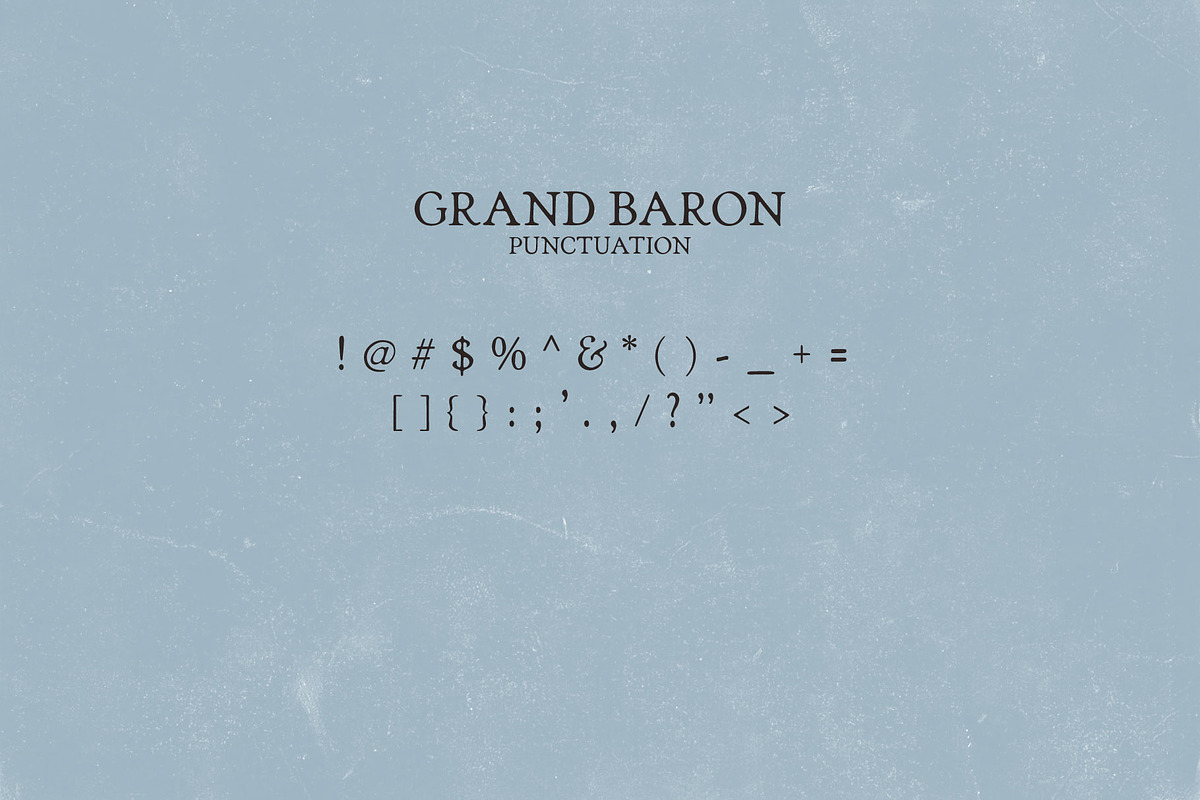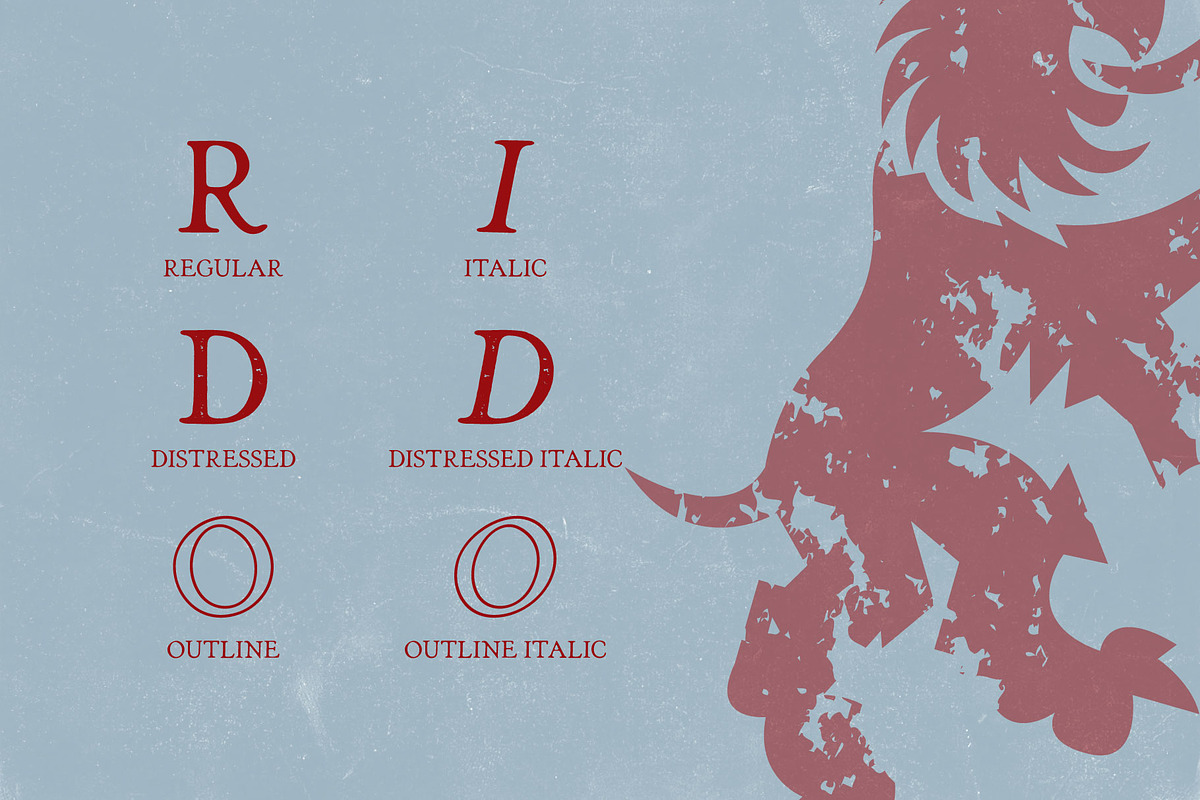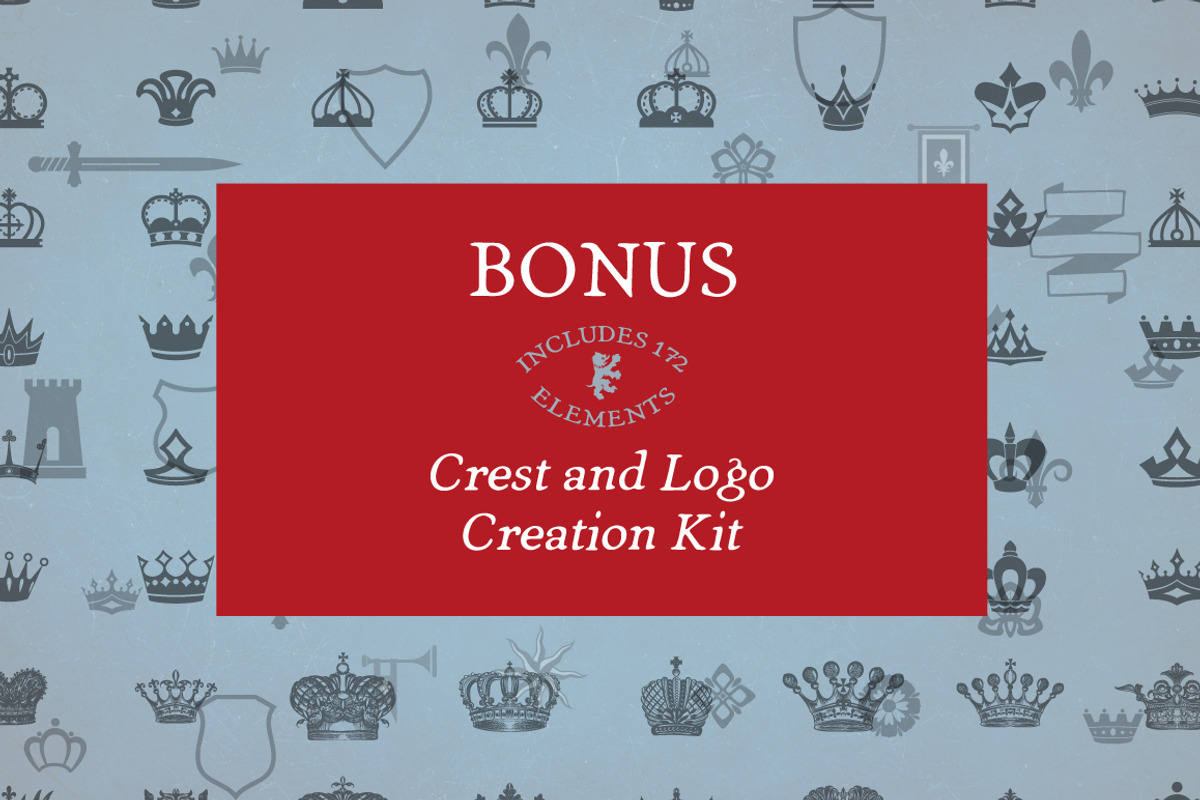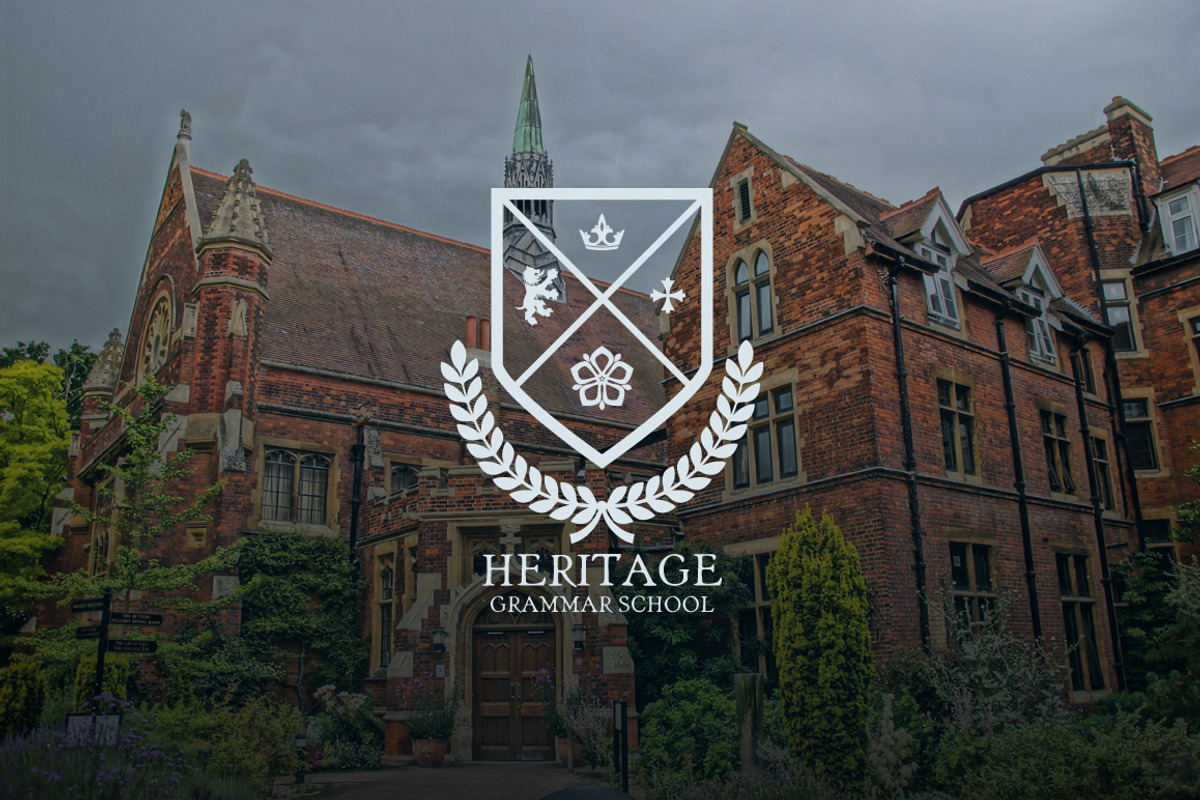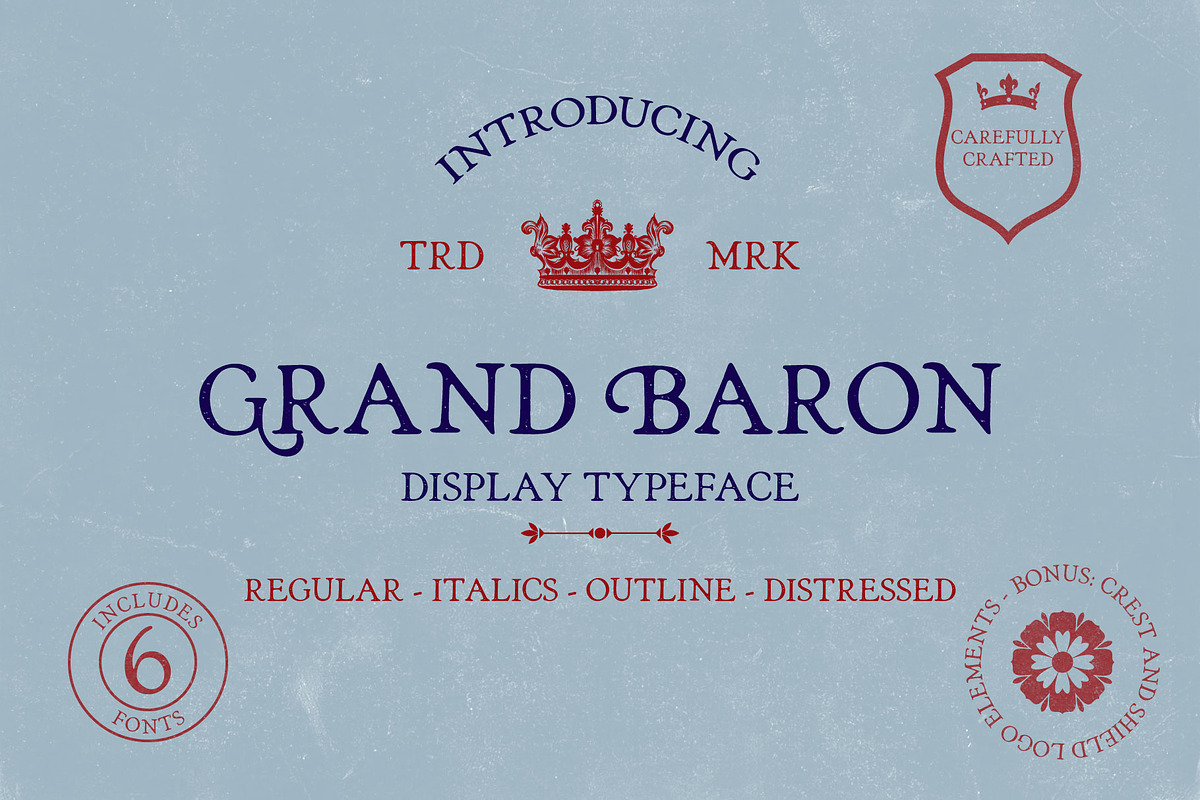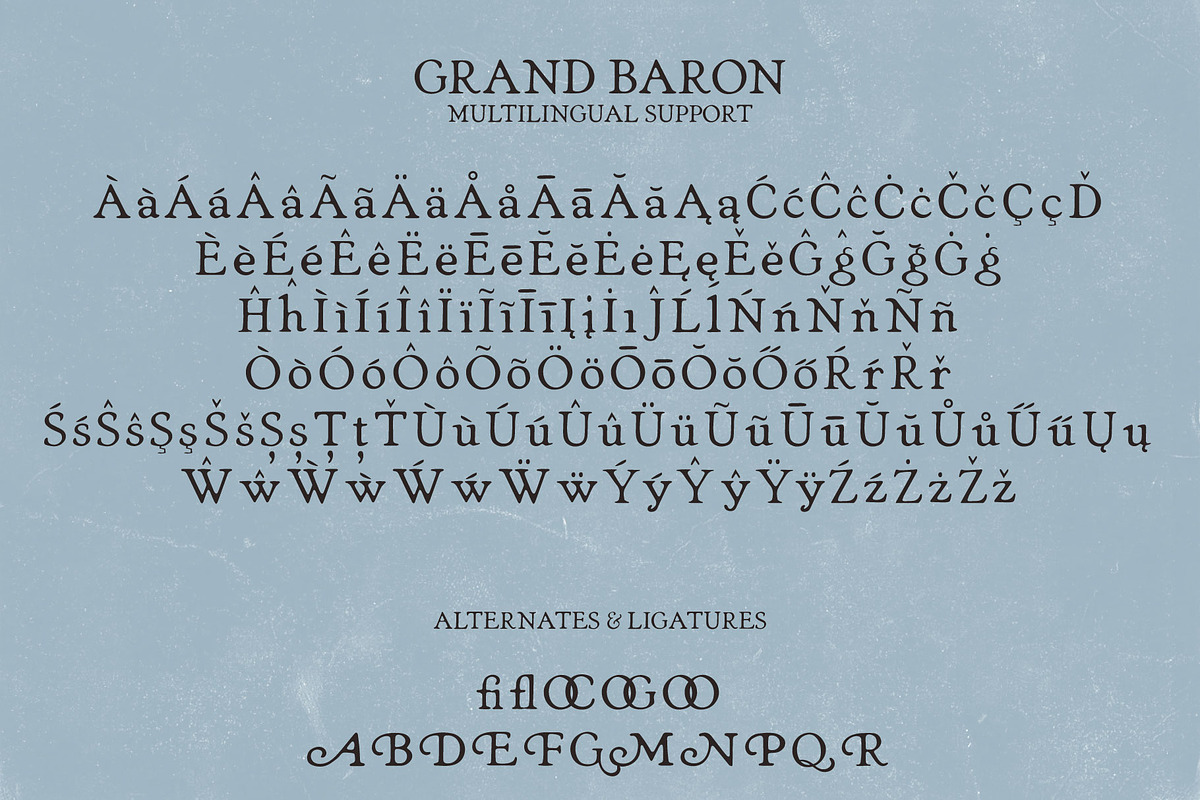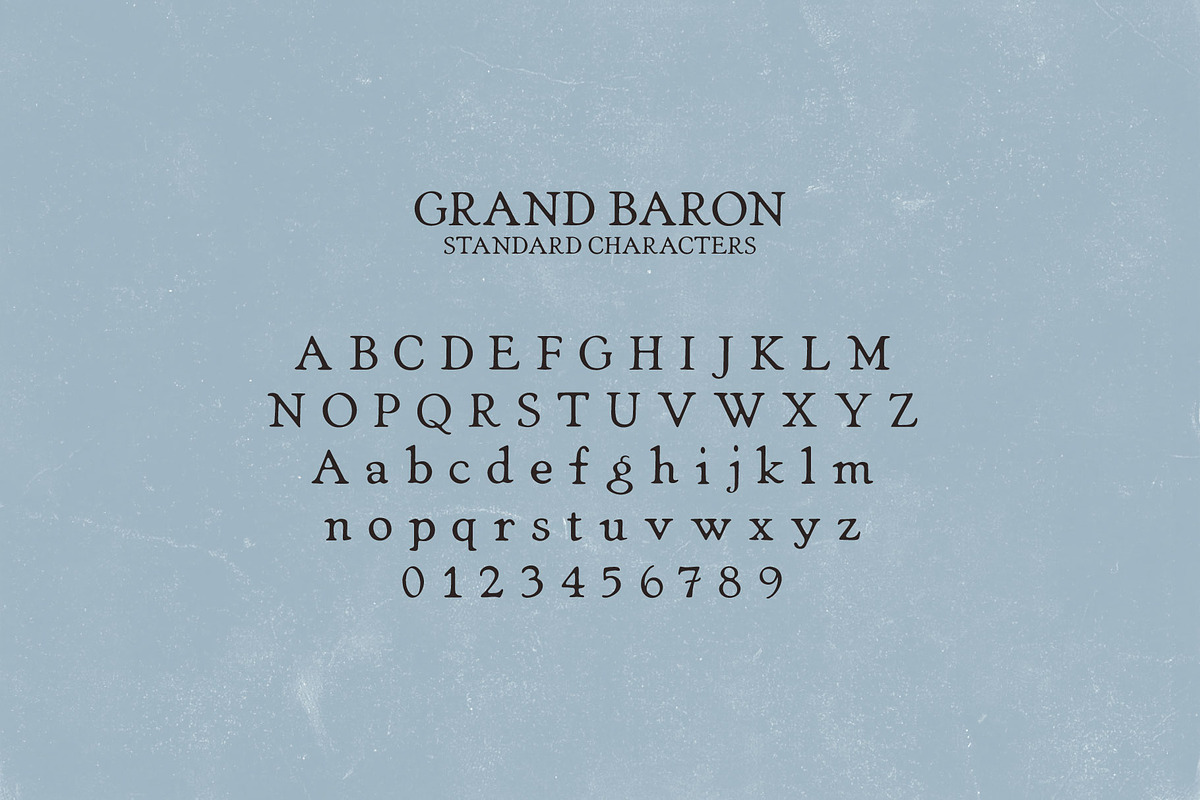
Grand Baron - A Vintage Typeface
Introducing: Grand Baron. This is an original serif typeface inspired by medieval times and aristocracy. There are six fonts included: Regular, Italic, Distressed, Distressed Italic, Outline, and Outline Italic. Grand Baron is suitable for branding, t-shirt design, print, business cards, logo, poster, photography, quotes etc.
This typeface comes with multilingual support, uppercase alternates, and ligatures.